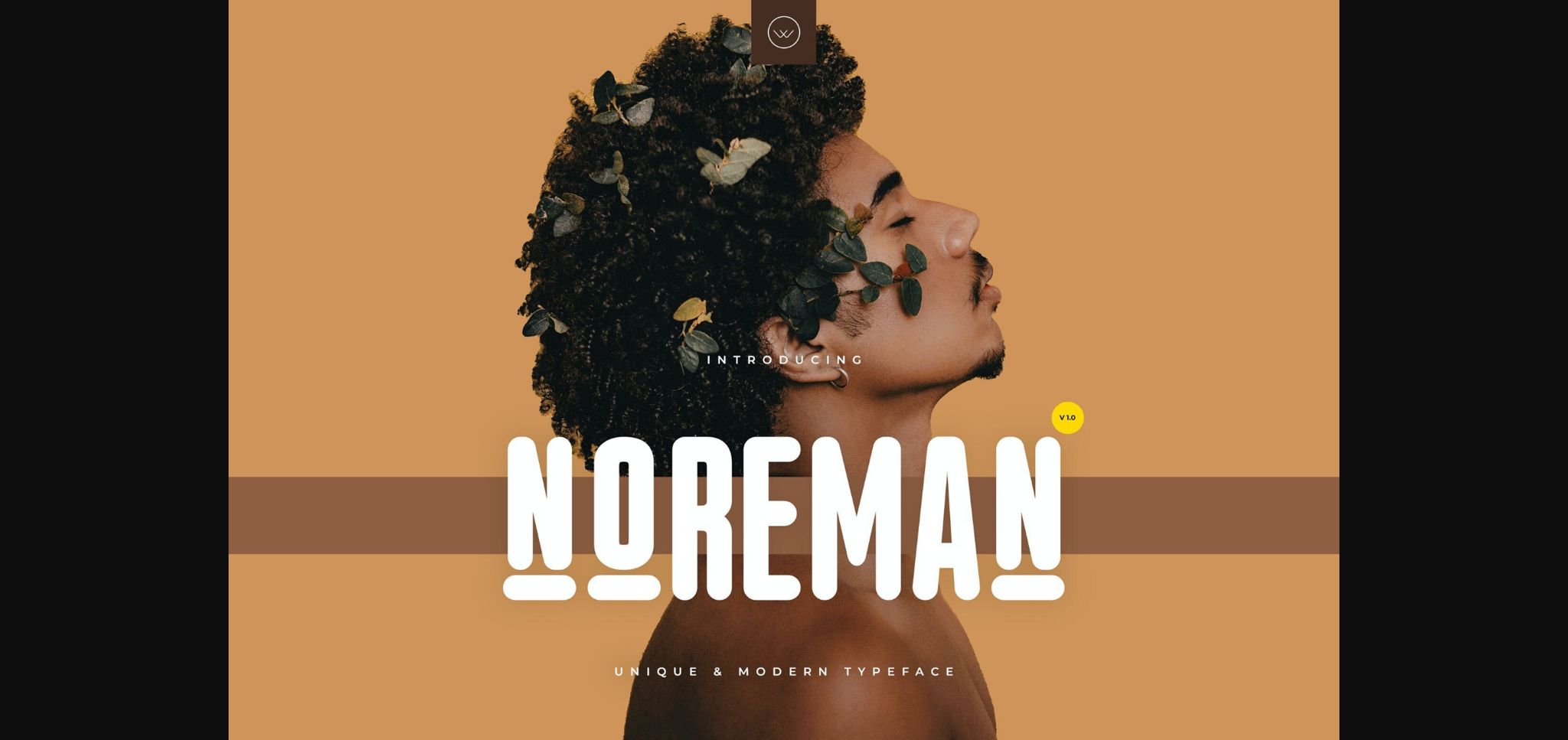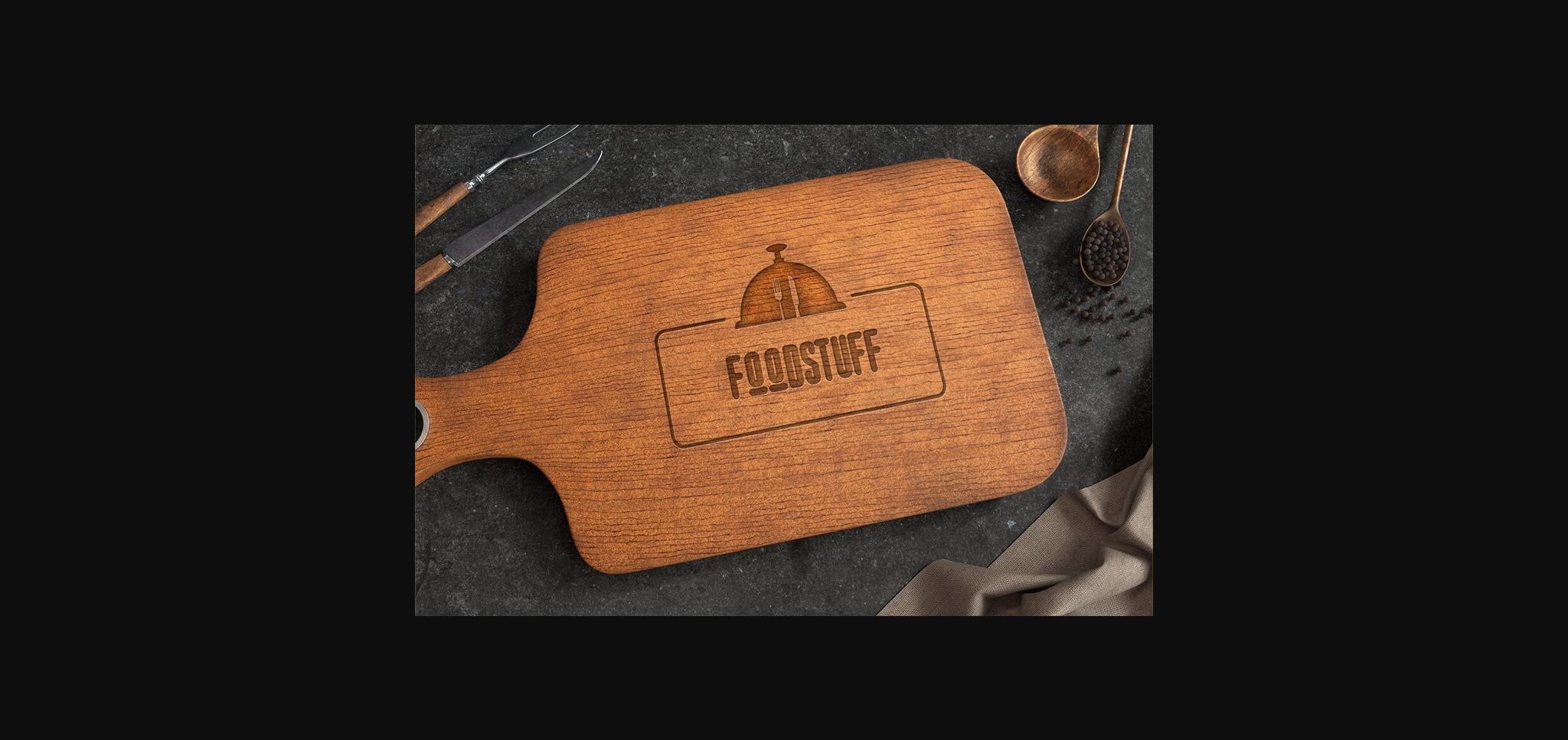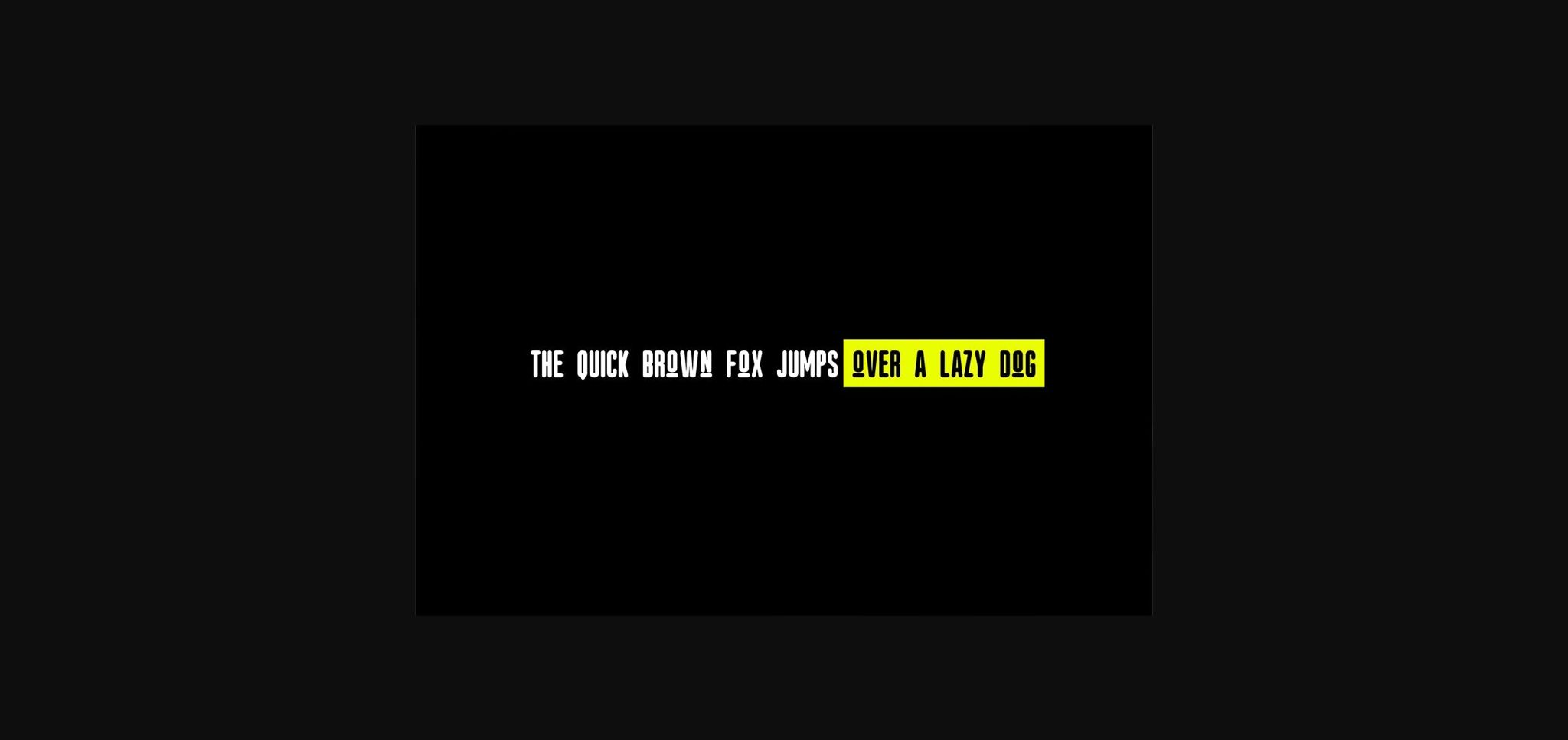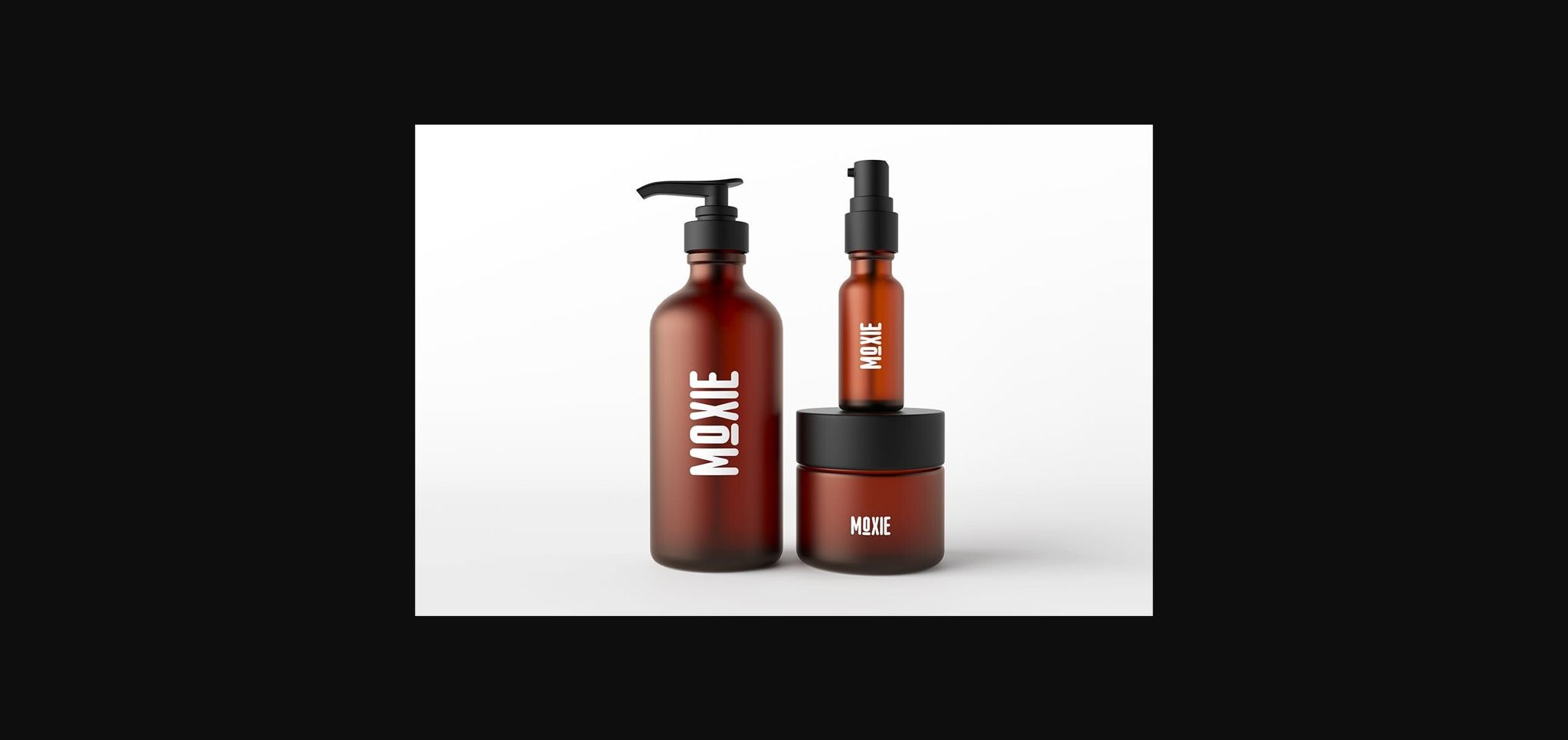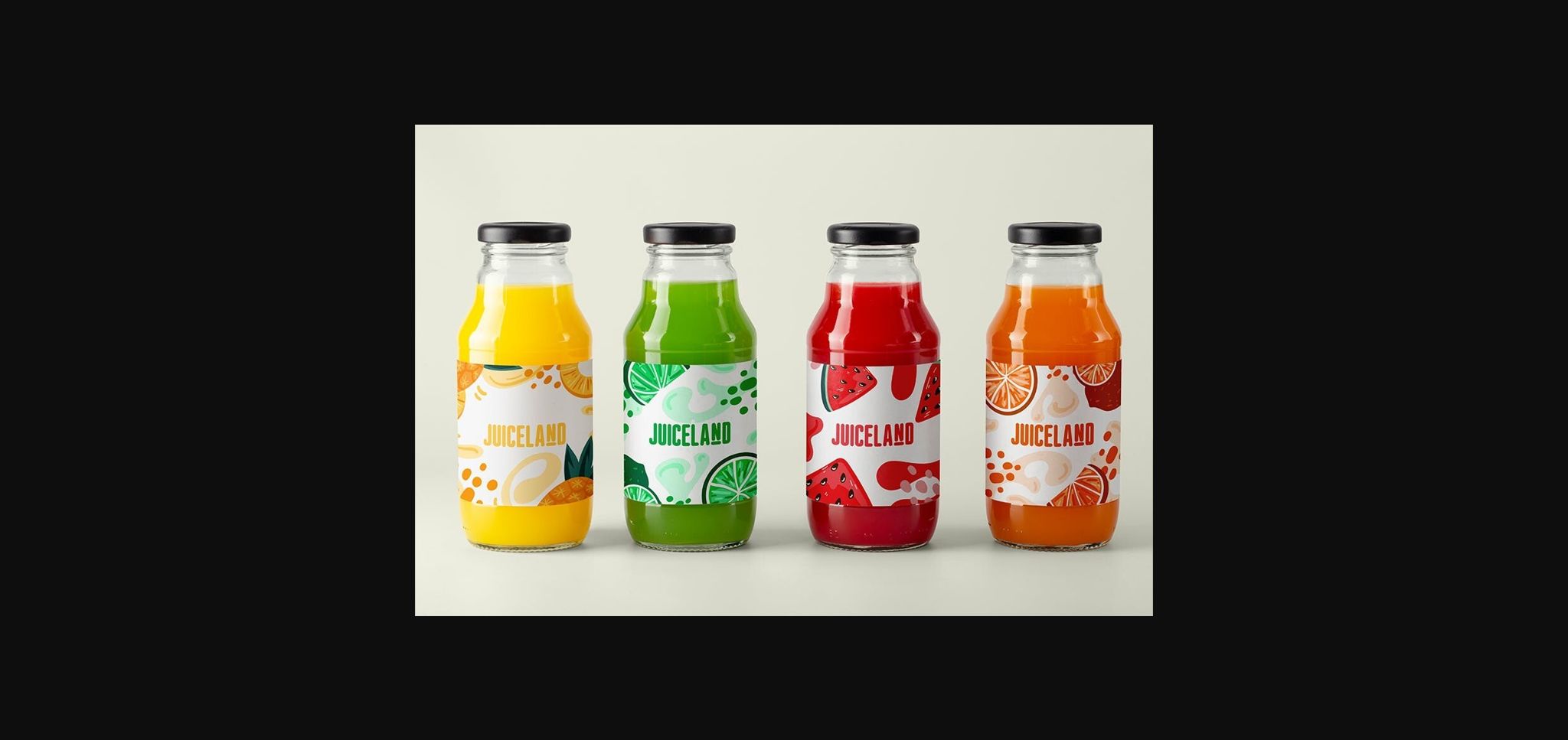
About Noreman Font
Elevate your creative projects with the sleek and captivating Noreman font. This exquisite typeface is meticulously crafted to bring a touch of elegance and sophistication to your design endeavors. With its uppercase-only design, comprising over 90 meticulously curated glyphs, including punctuations and numbers, Noreman is the ideal choice for those seeking to make a bold statement with their text.